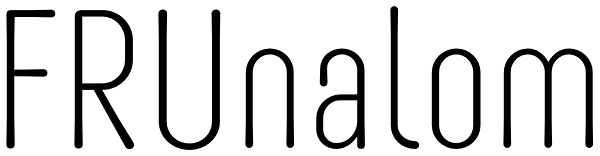
FR Unalom
The typeface was born out of an experiment with simple geometric forms. FR Unalom is a monoline font with many OpenType features (fractions, ligatures, stylistic alternates, small capitals etc.) with support for many languages. While the font was...